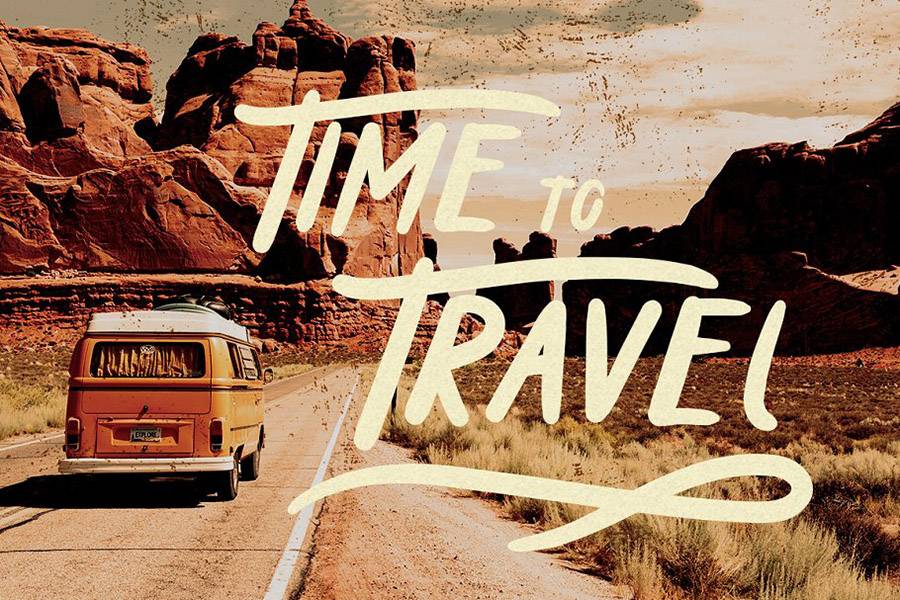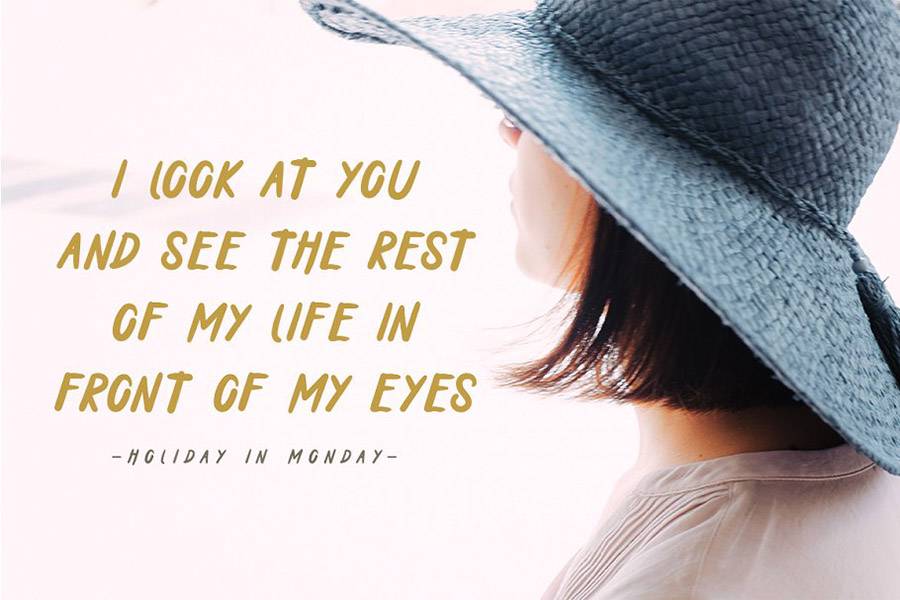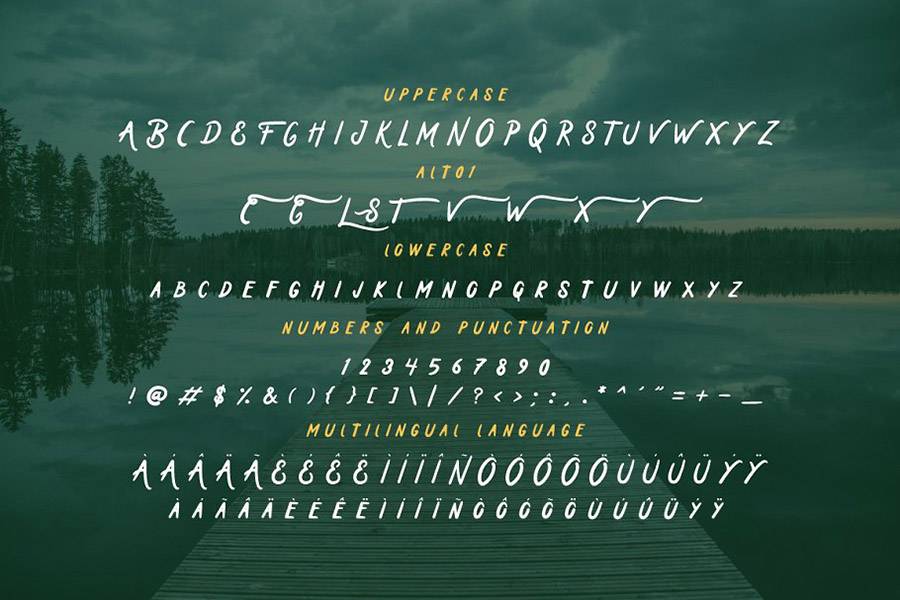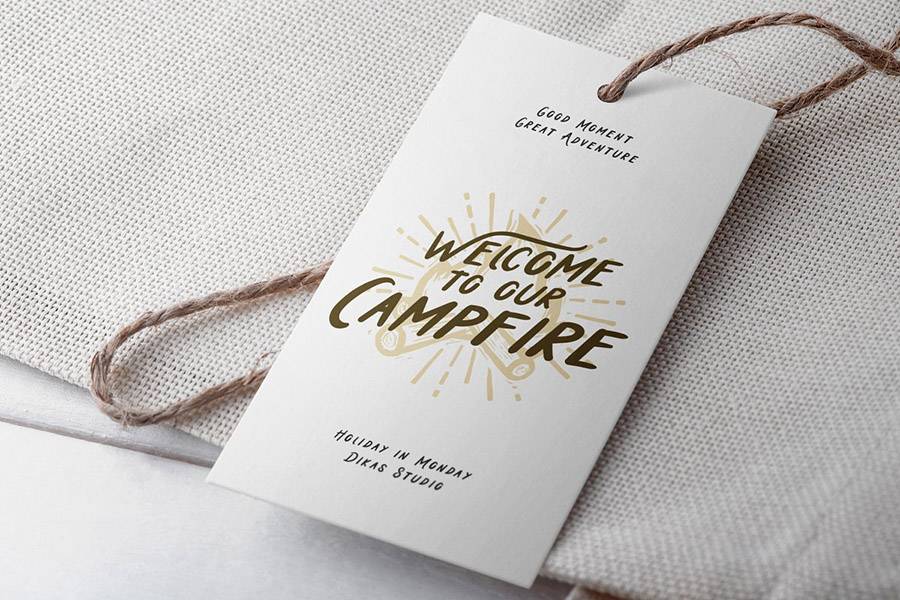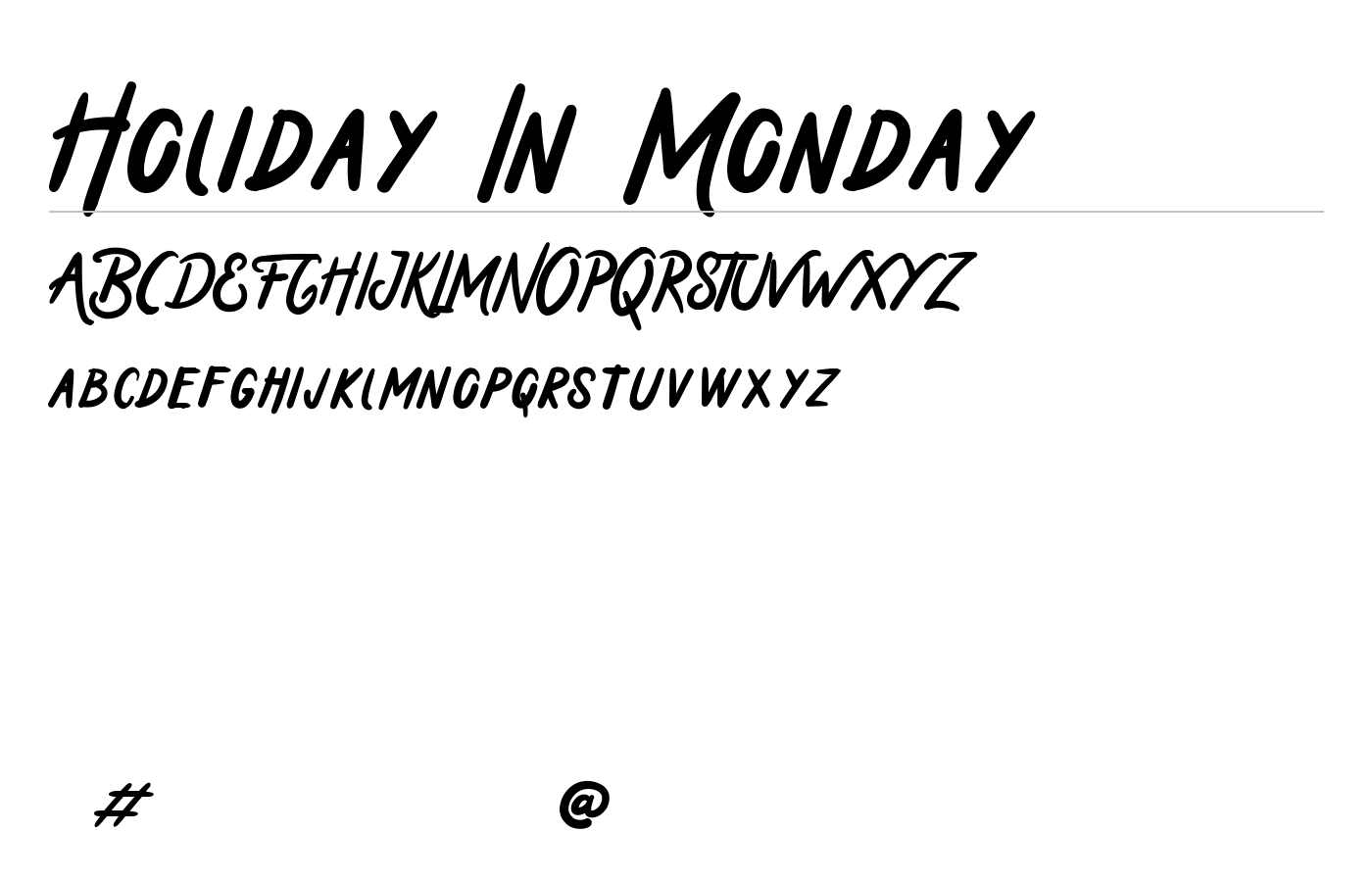
Holiday in Monday Display is a lively and casual script-style font with a handwritten feel that brings a playful and energetic vibe to any design. Its medium weight, slightly condensed letterforms with irregular stroke widths and dynamic, flowing lines give it a fun, informal personality perfect for eye-catching headlines, social media graphics, and creative branding projects. This font works well where a friendly, approachable look is desired, making it ideal for lifestyle, fashion, and entertainment contexts.
Holiday in Monday Display Font
About Holiday in Monday Display Font